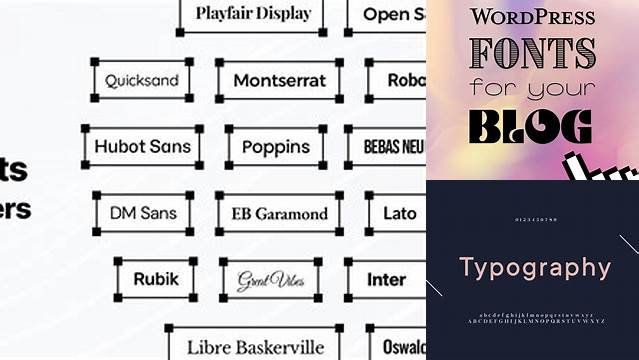
Best WordPress Fonts: Top Choices For Your Website
Choosing the best fonts for websites on WordPress can feel like a daunting task, but it's a crucial step in creating a visually appealing and user-friendly website. The right font can significantly enhance readability, reinforce your brand identity, and keep visitors engaged. Conversely, a poor font choice can make your site look unprofessional and drive users away. In this article, we'll explore some of the top fonts available for WordPress websites, offering insights into what makes them effective and how to use them to their full potential.
Why Font Choice Matters
Font choice matters more than many people realize. Typography is a fundamental element of design, and it plays a vital role in how your content is perceived. Think of fonts as the voice of your website. Just as your tone of voice conveys different emotions and intentions in spoken communication, your font choice conveys a particular feeling or message on your website. A clean, modern sans-serif font might communicate simplicity and innovation, while a classic serif font might evoke tradition and authority.
Readability is also a critical factor. If your website visitors struggle to read your text, they're not likely to stick around. Fonts should be clear, legible, and appropriately sized for comfortable reading on various devices. Consider the hierarchy of your content as well. Headings should stand out and guide the reader through the page, while body text should be easy on the eyes for longer reading sessions. The best fonts for websites strike a balance between aesthetics and usability, ensuring that your message is both beautiful and accessible.
Moreover, your font choice can significantly impact your website's branding. Consistency in typography helps create a cohesive brand identity, making your website instantly recognizable. Use fonts that align with your brand's personality and values. Are you a fun and playful brand? A quirky, informal font might be a good fit. Are you a serious, professional organization? A more conservative font might be more appropriate.
Top Fonts for WordPress Websites
Selecting the top fonts for websites involves considering a variety of options, each with its unique strengths and applications. Here are some of the best fonts that work well on WordPress websites:
1. Open Sans
Open Sans is a hugely popular sans-serif font known for its clean and highly readable design. Created by Steve Matteson, it's designed with an open form and a neutral yet friendly appearance. This makes it an excellent choice for body text, headings, and even navigation menus. Open Sans is incredibly versatile and works well across various industries and website types, from blogs and portfolios to corporate sites and e-commerce stores. Its legibility is particularly strong on screens, making it a reliable option for ensuring a pleasant reading experience for your visitors. Additionally, Open Sans is a web-safe font, meaning it's widely supported by browsers and won't cause display issues for your users. Its simplicity and clarity make it a top contender for one of the best fonts for websites aiming for a modern and accessible design.
2. Roboto
Roboto is another stellar sans-serif font that has gained immense popularity, thanks in part to its use in the Android operating system. Designed by Christian Robertson, Roboto has a dual nature. It has a mechanical skeleton and the forms are largely geometric. At the same time, the font features friendly and open curves. This makes it highly readable and gives it a contemporary feel. Roboto works exceptionally well for both headings and body text, providing a clean and crisp look that enhances the overall user experience. Its versatility makes it suitable for a wide range of websites, from tech blogs and news sites to personal portfolios and business websites. Roboto’s various weights and styles also offer plenty of flexibility in design. This allows you to create visual hierarchy and maintain consistency throughout your site. For those seeking a modern and functional font, Roboto is undoubtedly one of the top fonts for websites.
3. Montserrat
Montserrat is a geometric sans-serif font that exudes modern elegance and sophistication. Inspired by urban typography from the early 20th century, Julieta Ulanovsky designed Montserrat to capture the beauty of Buenos Aires' Montserrat neighborhood. This font boasts clean lines, balanced letterforms, and a distinctive appearance that makes it stand out. Montserrat is particularly effective for headings, logos, and short blocks of text. Its strong visual presence adds a touch of class to any website. While it can be used for body text, it shines best when used sparingly to highlight key elements on your page. Montserrat is a fantastic choice for creative agencies, design studios, and any website aiming to convey a sense of style and modernity. If you’re looking for one of the best fonts for websites that combines aesthetic appeal with readability, Montserrat is an excellent option.
4. Lato
When discussing the top fonts for websites, Lato invariably comes up. Designed by Łukasz Dziedzic, Lato is a sans-serif typeface that strikes a beautiful balance between warmth and clarity. Its semi-rounded details give it a friendly and approachable feel, while its strong structure ensures excellent readability. Lato is incredibly versatile and works well in a variety of contexts, making it suitable for both headings and body text. It's particularly effective for websites that want to convey a sense of openness and transparency. Lato's clean lines and balanced letterforms make it easy on the eyes. This ensures a pleasant reading experience for your visitors. Whether you’re running a blog, an e-commerce store, or a corporate website, Lato can help you create a professional and inviting design. Its widespread popularity and ease of use make it a reliable choice for anyone looking to enhance their website's typography.
5. Playfair Display
Playfair Display is a transitional serif font designed by Claus Eggers Sørensen. It evokes a sense of elegance and sophistication. Inspired by the late 18th-century designs of John Baskerville and William Martin, Playfair Display features high contrast and delicate serifs, making it perfect for headings and titles. This font adds a touch of class to any website. While it's not ideal for long blocks of body text due to its decorative nature, it excels at creating visual impact and drawing attention to key elements on your page. Playfair Display is particularly well-suited for websites in the fashion, beauty, and lifestyle industries. It enhances the overall aesthetic with its refined and stylish appearance. For those looking to add a touch of luxury and sophistication to their WordPress site, Playfair Display is undoubtedly one of the best fonts for websites to consider.
6. Merriweather
Merriweather is a serif typeface designed specifically for on-screen reading by Sorkin Type. It features a large x-height, slightly condensed letterforms, and sturdy serifs, all of which contribute to its excellent readability. Merriweather is an ideal choice for body text, as it's designed to be easy on the eyes even for extended reading sessions. Its classic yet modern appearance makes it suitable for a wide range of websites, from blogs and news sites to educational platforms and online magazines. Merriweather strikes a perfect balance between aesthetic appeal and functional design. This ensures that your content is both visually pleasing and highly accessible. If you’re looking for one of the best fonts for websites that prioritizes readability without sacrificing style, Merriweather is an outstanding option.
Choosing the best fonts for websites on WordPress is a crucial step in creating a visually appealing, user-friendly, and brand-consistent online presence. By considering factors such as readability, brand identity, and font pairing, you can select fonts that enhance your website's overall design and improve the user experience. Fonts like Open Sans, Roboto, Montserrat, Lato, Playfair Display, and Merriweather offer excellent options for various website types and design preferences. Remember to test your font choices and iterate based on feedback and data to ensure your website looks its best and effectively communicates your message. With careful consideration and a little experimentation, you can find the perfect typography to elevate your WordPress website to the next level.